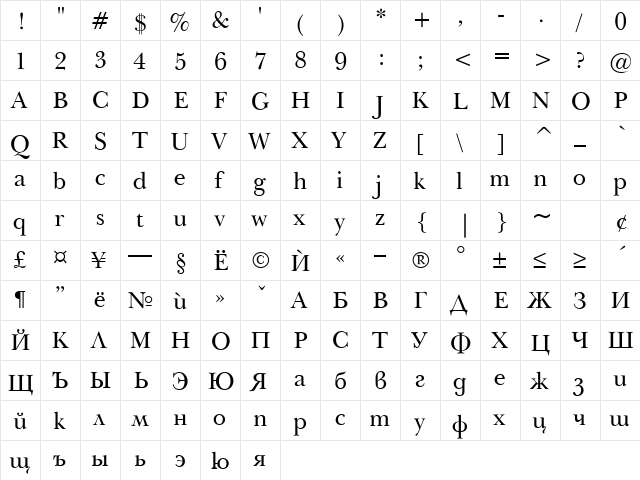
Balkan Normal
Design Context for Balkan Typeface
Balkan offers clean, dependable letterforms without strong stylistic allegiance, making it a practical choice for designers who need flexibility.
Pro Tip: Pair Balkan with a font of contrasting weight or personality to build a more expressive typographic hierarchy.